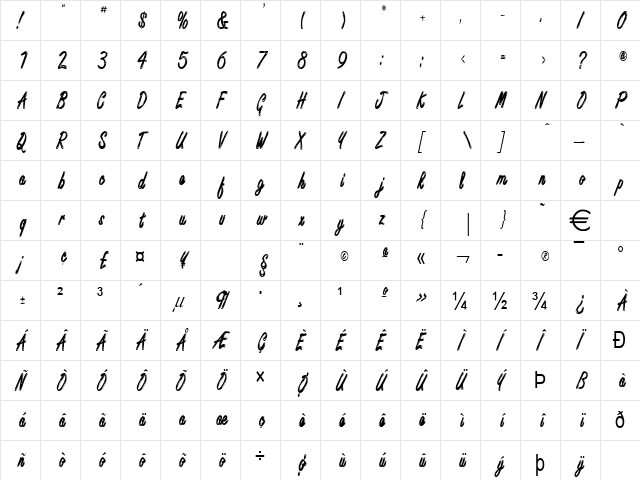
EncinoCondensed Normal
Design Context for EncinoCondensed Typeface
EncinoCondensed is a composed and adaptable typeface that performs quietly and consistently across a wide range of design contexts. The condensed width makes it efficient for tight spaces without sacrificing legibility.